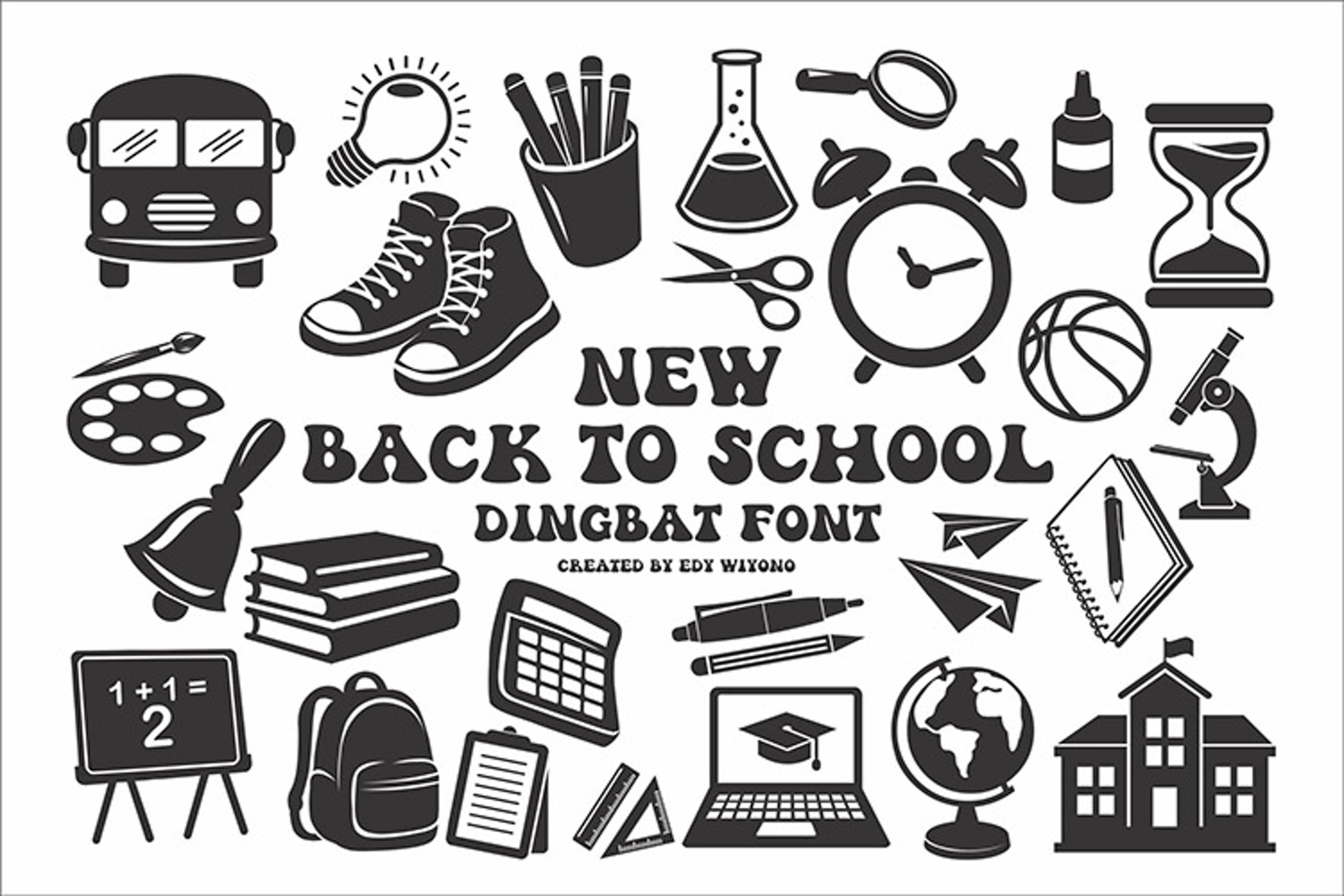
New Back To School Font
New Back To School
NEW BACK TO SCHOOL is a fun and versatile dingbats font featuring a complete collection of school-themed icons and educational symbols. This font includes a wide variety of objects commonly associated with school life, learning activities, and education environments, such as books, backpacks, pencils, notebooks, scissors, alarm clocks, microscopes, globes, school buildings, art tools, sports equipment, and classroom elements.